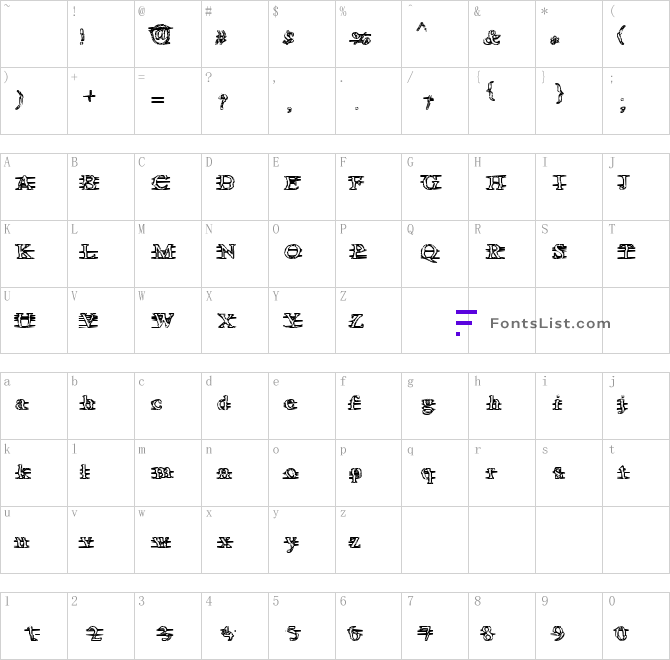
- Font Name:Are you awake, Neo?
Are-you-awake-Neo-(1).ttf is a very beautiful artistic font, Are-you-awake-Neo-(1).ttf is widely used in the design and printing of various books and pictures,Are-you-awake-Neo-(1).ttf has a strong visual impact,Are-you-awake-Neo-(1).ttf is a commonly used font in newspapers, magazines and books, and is used in posters, e-commerce Poster design, store design, logo design, font design and other fields.Are-you-awake-Neo-(1).